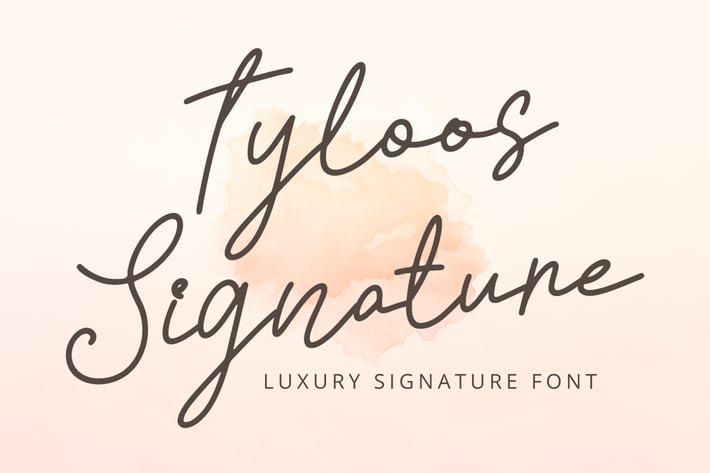
Tyloos Signature - Signature Font
Introducing Tyloos Signature - Inspired by handwritten font cursive, signature font word that perfect for any design project you have!
Tyloos Signature is perfect for winter sale design, branding, logo, invitation, stationery, wedding, product packaging, merchandise, monogram, blog design, game titles, cute style design, Book/Cover Title, movie poster, youtube thumbnail and more.
Uppercase & lowercase
numeral & punctuation
Ligatures
* Multilingual Support